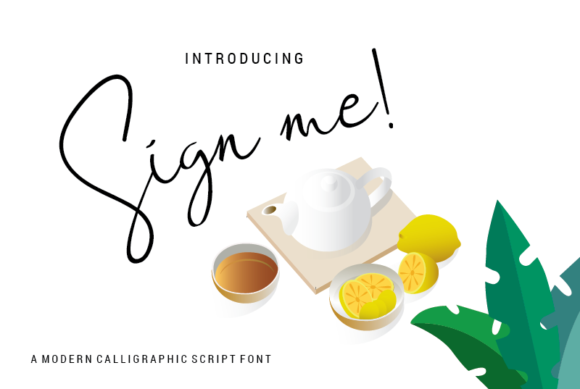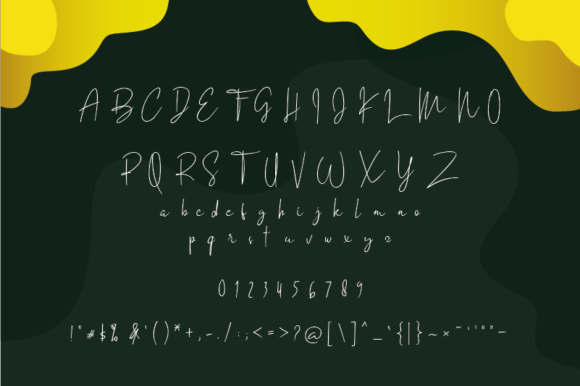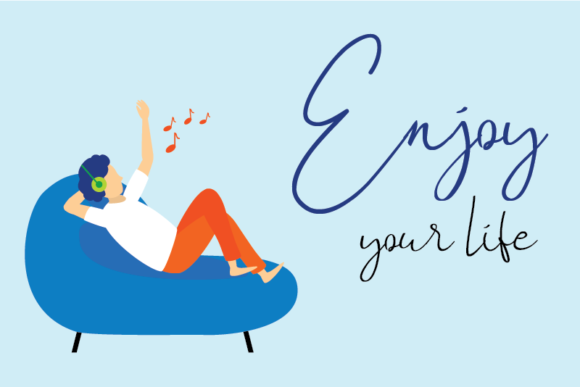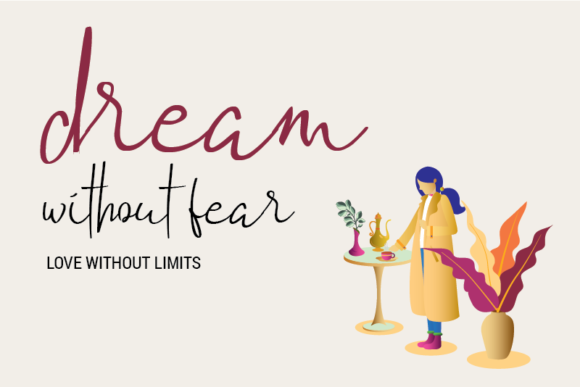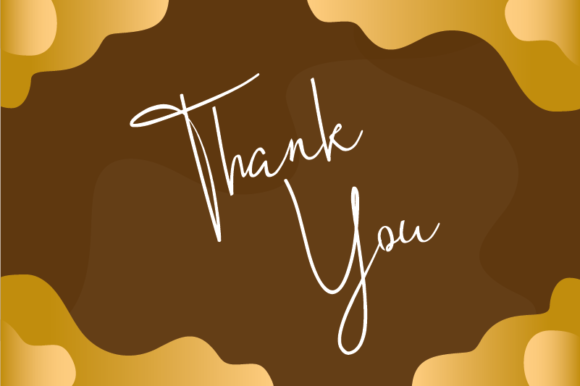
Sign Me! Font
About Sign Me! Font
Sign Me! is a flowing handwritten font, described by an elegant touch, perfect for your favorite projects. Fall in love with its incredibly distinct and timeless style and use it to create spectacular designs!